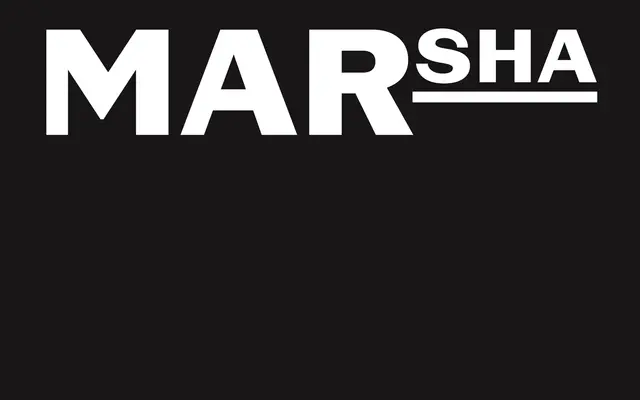
A display typeface drawn from the vertical sign of the Stonewall Inn and named in honour of transgender activist Marsha P. Johnson.
Rooted in the lettering of the Stonewall Inn's original vertical sign, this typeface carries the visual memory of a site central to LGBT liberation in America. Vocal Type named it after Marsha P. Johnson, an African-American transgender activist whose role in the 1969 Stonewall uprising brought her to the forefront of the gay liberation movement. The design is part of Vocal Type's broader practice of recovering type histories tied to civil rights and social movements.
Inspired by the vertical sign outside the Stonewall Inn, Marsha is a display typeface rooted in mid-century American signage lettering, making it a historically grounded display face rather than a text or body type.